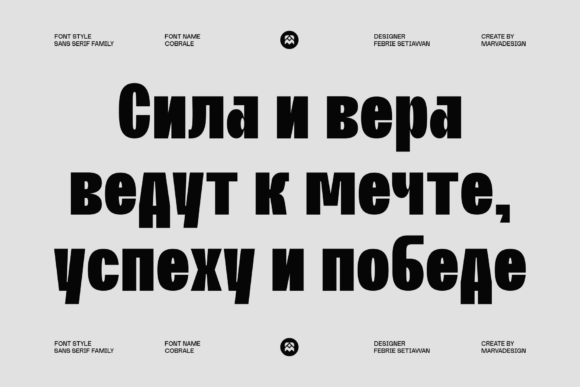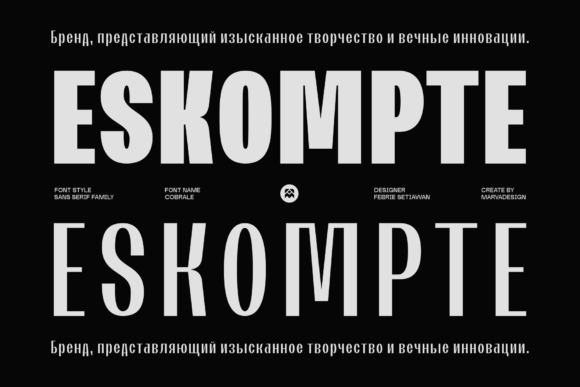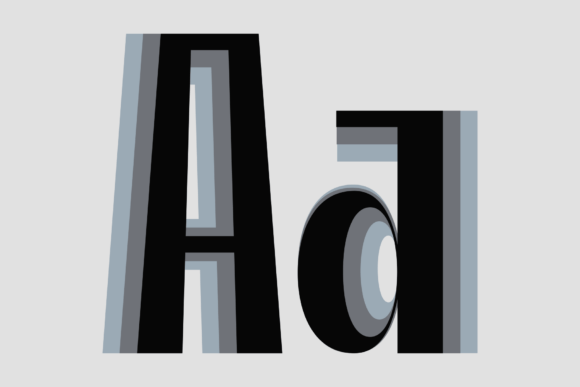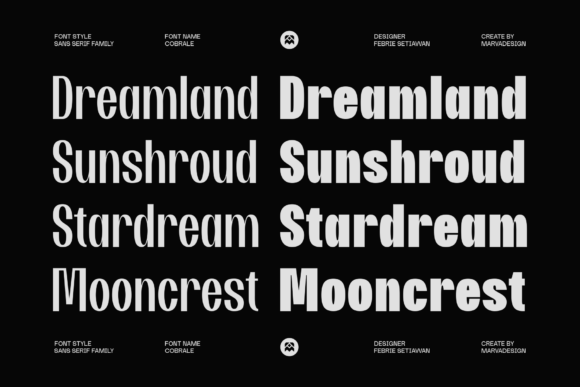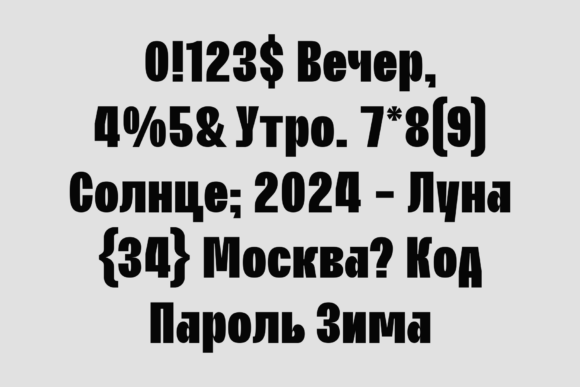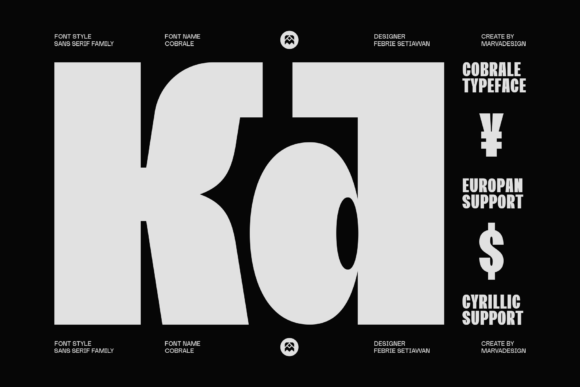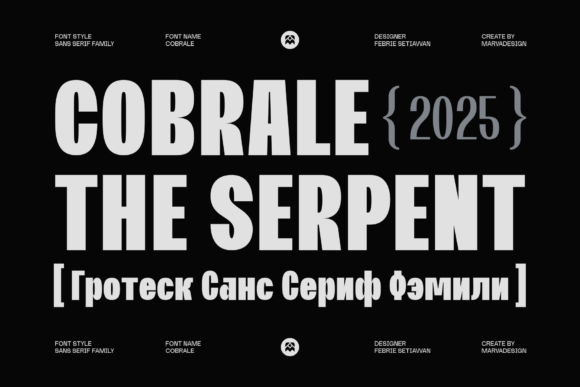
Cobrale Font: A Modern Sans-Serif Marvel for Designers and Crafters
In the realm of typography, a font can make all the difference in the success of a design project. A well-crafted typeface can elevate a brand’s identity, convey a message with clarity, and leave a lasting impression on its audience. Introducing Cobrale, a modern sans-serif font family that embodies the perfect blend of bold expression and sharp versatility. Designed to cater to a wide range of design needs, Cobrale is poised to become a go-to choice for designers and crafters worldwide.
A Triad of Styles for Unparalleled Flexibility
Cobrale boasts three distinct styles: Regular, Medium, and Bold. This thoughtful design approach allows designers to choose the perfect weight to suit their project’s requirements. Whether you’re working on a minimal editorial layout or a powerful display headline, Cobrale’s got you covered. The Regular style offers a clean and elegant look, while the Medium style provides a balance of sophistication and visibility. For those times when you need to make a statement, the Bold style delivers a commanding presence that’s sure to grab attention.
Clean, Grotesque, and Elegant
At its core, Cobrale features a clean, grotesque character that exudes both strength and elegance. The typeface’s strong geometric proportions provide a solid foundation, while subtle curves add a touch of sophistication. This harmonious balance of elements makes Cobrale an excellent choice for a variety of applications, from branding and posters to packaging and digital interfaces.
Global Usability: Latin and Cyrillic Scripts Supported
In today’s interconnected world, a font’s usability extends far beyond a single alphabet. Cobrale rises to the challenge by supporting both the Latin alphabet and the Cyrillic script. This thoughtful design consideration ensures that designers can work with confidence, knowing that their chosen typeface can adapt to diverse linguistic and cultural contexts.
PUA-Encoded for Effortless Customization
Cobrale font takes customization to the next level with its PUA (Private Use Area) encoding. This means that designers can access all glyphs, swashes, and alternate characters with ease, allowing for effortless customization of their creations. Whether you’re looking to add a personal touch or create a unique brand identity, Cobrale’s PUA encoding makes it easy to do so.
A Perfect Balance of Creativity and Professional Precision
Cobrale embodies the perfect balance of contemporary aesthetics and practical functionality. Its modern sans-serif design ensures that it remains relevant in today’s fast-paced design landscape, while its timeless clarity guarantees that it will stand the test of time. Whether you’re a designer seeking a reliable workhorse or a crafter looking for a versatile typeface, Cobrale is poised to become an indispensable tool in your creative arsenal.
Applications and Use Cases
Cobrale’s versatility makes it an excellent choice for a wide range of applications, including:
• Branding: Establish a strong brand identity with Cobrale’s bold and elegant design.
• Posters: Grab attention with Cobrale’s commanding presence and clear typography.
• Packaging: Add a touch of sophistication to your packaging design with Cobrale’s clean and modern aesthetic.
• Digital Interfaces: Enhance user experience with Cobrale’s clear and legible design, perfect for UI/UX applications.
In conclusion, Cobrale font is a modern sans-serif marvel that offers designers and crafters a powerful tool for creating stunning visual experiences. With its triad of styles, clean and elegant design, global usability, and PUA encoding, Cobrale is poised to become a go-to choice for a wide range of design applications. Experience the perfect balance of creativity and professional precision with Cobrale – the ultimate typeface for designers and crafters worldwide.